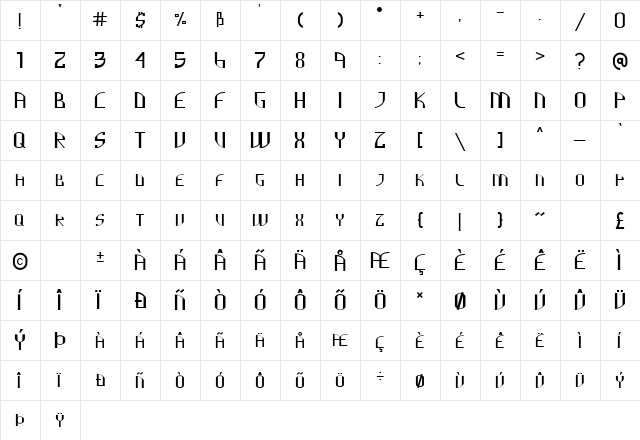
Cully Regular
Design Context for Cully Typeface
Cully is a composed and adaptable typeface that performs quietly and consistently across a wide range of design contexts.
Pro Tip: Pair Cully with a font of contrasting weight or personality to build a more expressive typographic hierarchy.